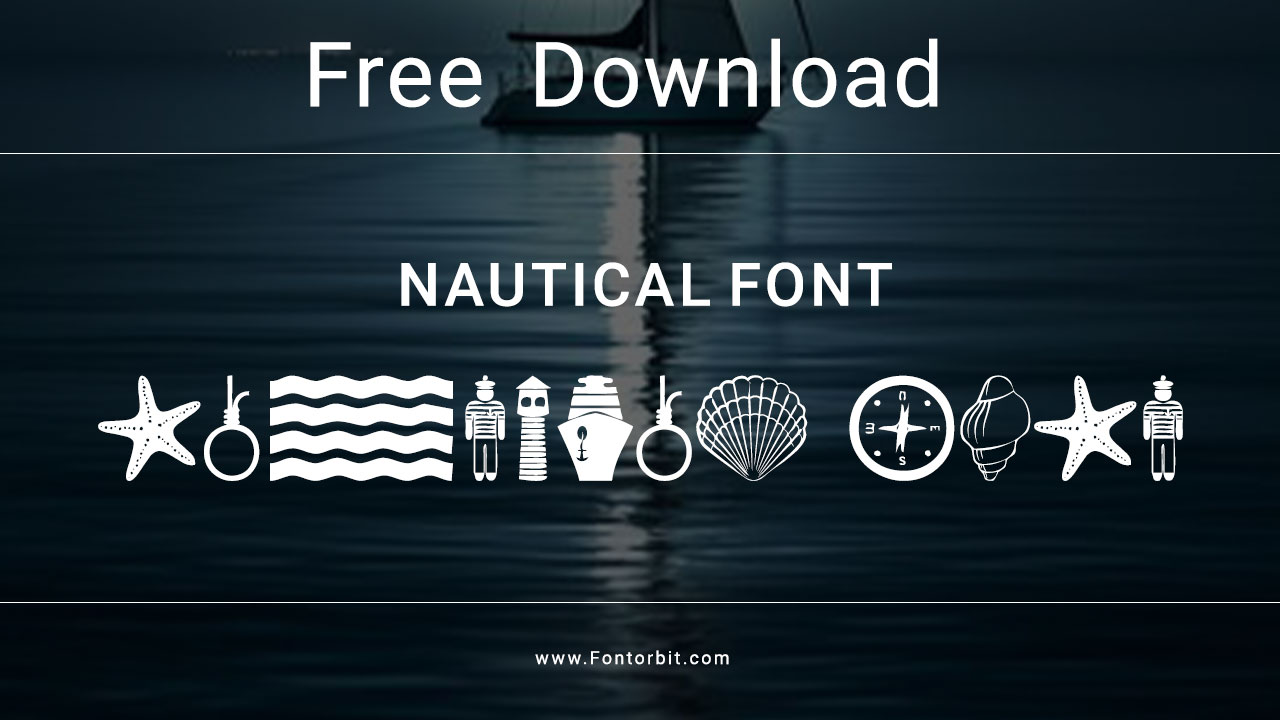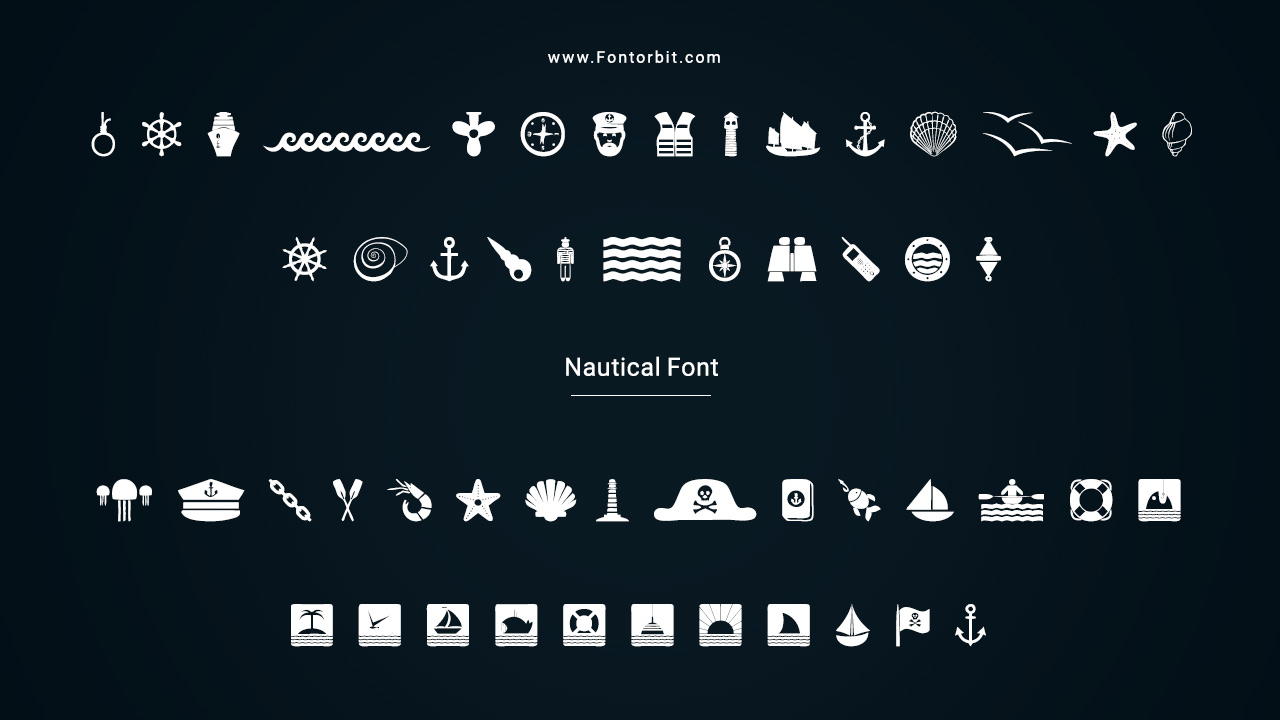
Typography enthusiasts and designers looking to evoke the spirit of the sea often turn to nautical fonts. These typefaces capture maritime aesthetics with elements like ropes, waves, and vintage sailor themes. Nautical typefaces offer a perfect balance of elegance and adventure, making them ideal for branding, posters, and tattoos.
Why Use Nautical Fonts?
- Evoke the maritime spirit
- Perfect for branding and packaging
- Unique, stylish, and vintage aesthetics
- Versatile for various design needs
Popular Nautical Font Families
- Captain Nelson – A bold serif font with a vintage appeal
- Sailor Jerry – Inspired by old-school tattoos0
- Bad Sailor – A handwritten font with rugged edges
- Bold Riley – Strong and stylish for statement designs
- Pirate Bay Typeface – Great for pirate-themed designs
- Sonorous Font – A decorative typeface with a classic touch
- Seaworthy Typeface – Ideal for oceanic and adventure-themed projects
Key Features Of Nautical Typography
- Serif & Script Fonts: Offers both formal and casual styles
- Wave & Rope Elements: Enhances the maritime theme
- Bold & Decorative: Suitable for logos and headers
- Handwritten & Vintage: Perfect for retro and adventurous designs
Best Uses For Nautical Fonts
- Logos & Branding: Ideal for marine brands and adventure companies
- Tattoo Design: Inspired by classic sailor aesthetics
- Posters & Labels: Adds an artistic, vintage touch
- Gaming Graphics: Perfect for pirate or ocean-themed games
- T-Shirts & Merchandise: Creates a bold, stylish look
1.What Is A Nautical Font?
A nautical font is a typeface inspired by maritime themes, often featuring rope, waves, or vintage sailor elements.
3.What Is The Best Nautical Font For Tattoos?
Sailor Jerry and Bad Sailor are great for tattoo-style typography.
4.Can I Use Nautical Fonts For Business Branding?
Yes! They work well for maritime brands, adventure companies, and themed restaurants.
5.Which Fonts Resemble Ocean Waves?
Wave Nautical Font and Ocean Font mimic the movement of the sea.
6.Are Nautical Fonts Good For Gaming Design?
Yes, Pirate Bay Typeface and Sonorous Font are excellent for gaming graphics.
7.How Do I Pair Nautical Fonts With Other Typefaces?
Combine a bold nautical font with a simple sans-serif or monoline script for balance.